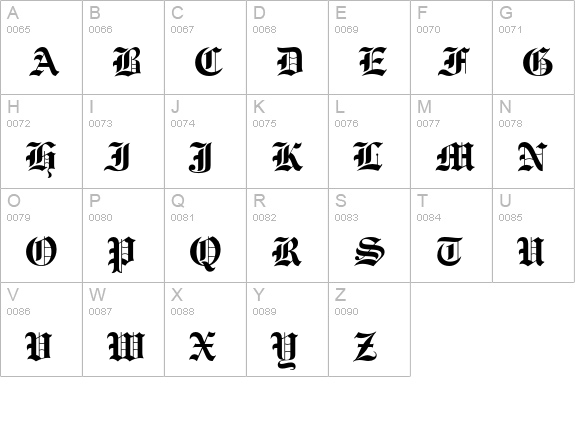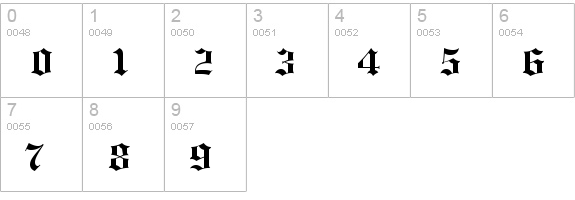
Engravers' Old English Bold is a strong, high-contrast variant in the Engravers' typeface family \xE2\x80\x94 well suited to headlines, attention-grabbing titles, and strong calls-to-action.
Engravers' Old English Bold font is a timeless and elegant typeface that exudes sophistication and tradition. Its intricate letterforms and ornate details make it perfect for adding a touch of old-world charm to any project. This classic font is ideal for creating vintage-inspired designs, elegant invitations, and stylish logos. Best of all, Engravers' Old English Bold font is available for free download at FontsMarket.com. Now you can easily incorporate this stunning typeface into your designs without any cost. Don't miss out on the opportunity to add a touch of timeless elegance to your work with this beautiful font. Download Engravers' Old English Bold today and elevate your designs to the next level.